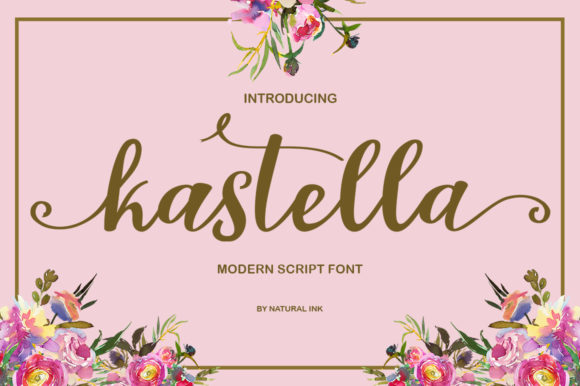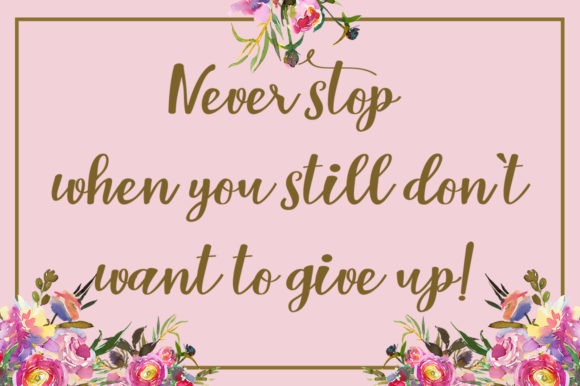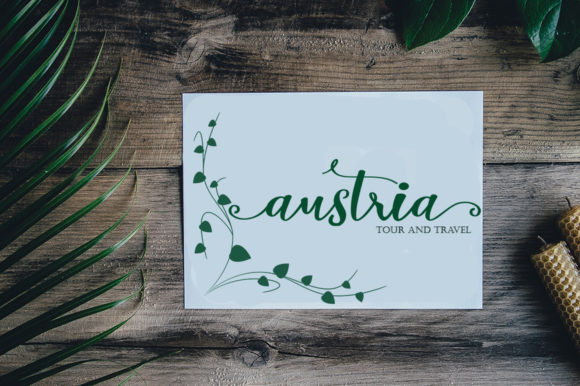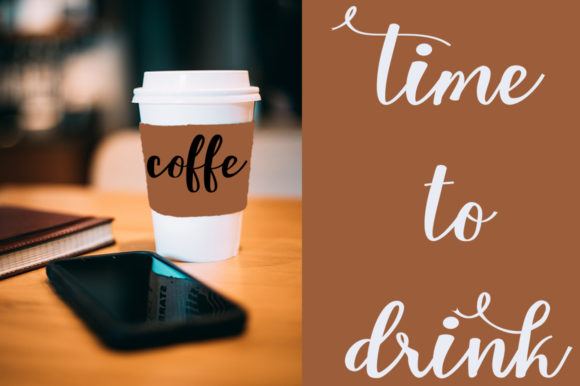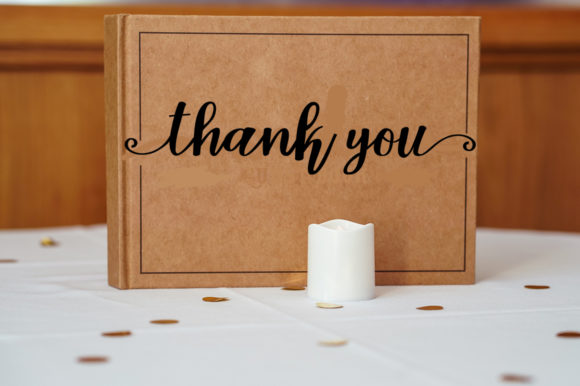
Kastella Font
About Kastella Font
Kastella is a modern script font. It’s elegant with swashes. Can be used for various purposes such as logos, product packaging, wedding invitations, branding, headlines, signage, quotes and more.